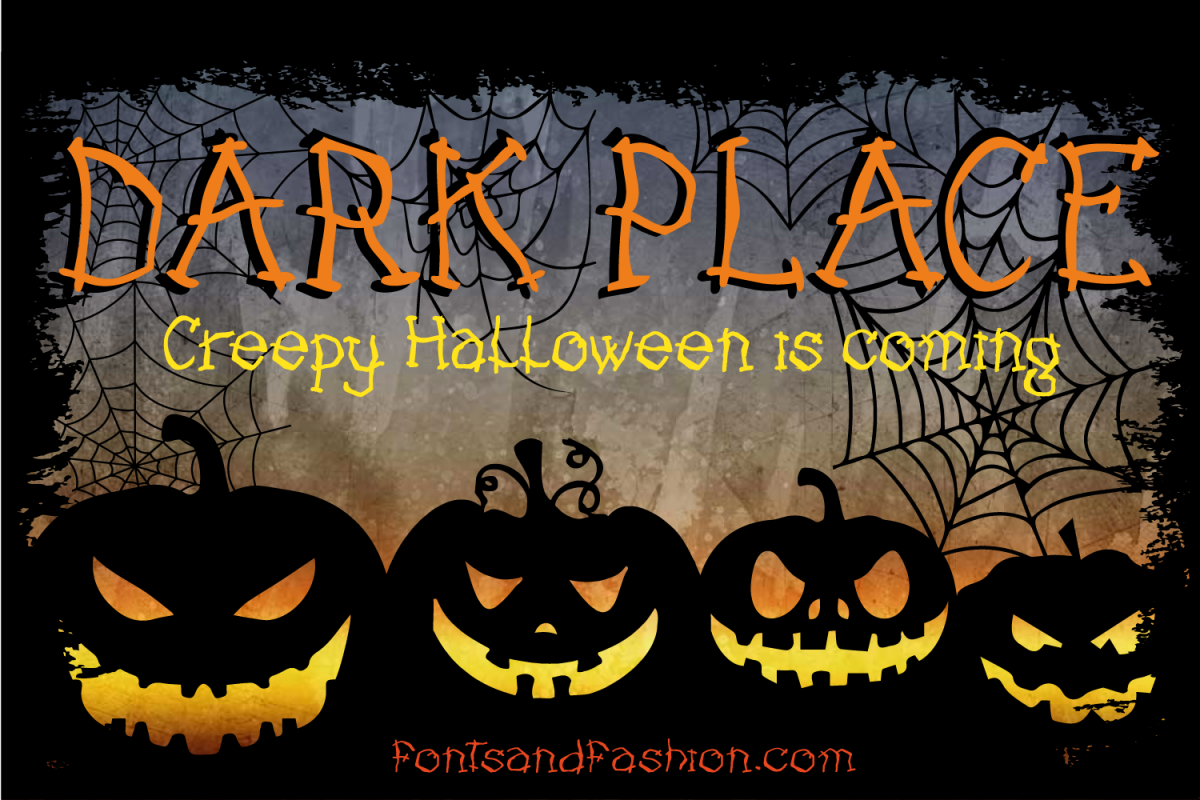
Dark Place
DARK PLACE” is a handmade font created to be versatile.
It has a sharp-cornered appearance even if it doesn't end up having a geometrical form.
Its structure can bring to mind an ensemble of broken branches criss-crossed together.
This character is very fitting to Halloween artwork, but it is particularly recommended for engraving effects also on wood or stone background.
You can use “DARK PLACE” font for several kinds of projects.
….And if you’ll have some creeps, no worries, the Night of Horror is coming…..